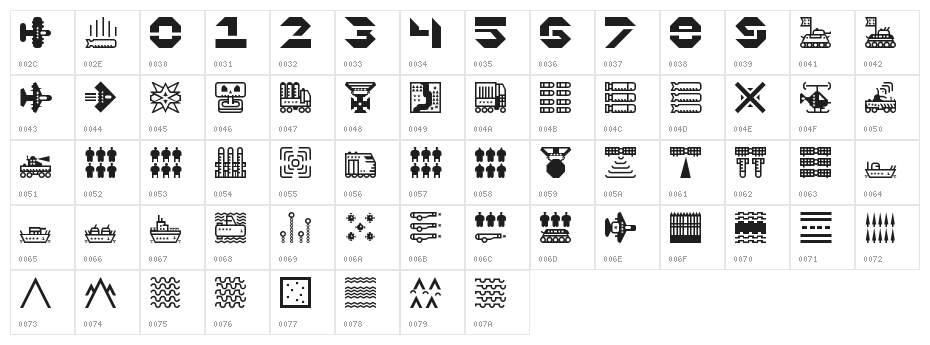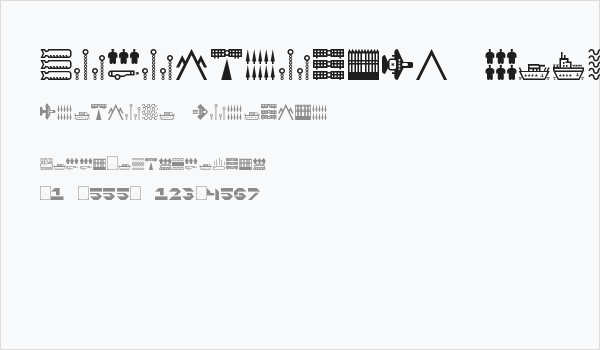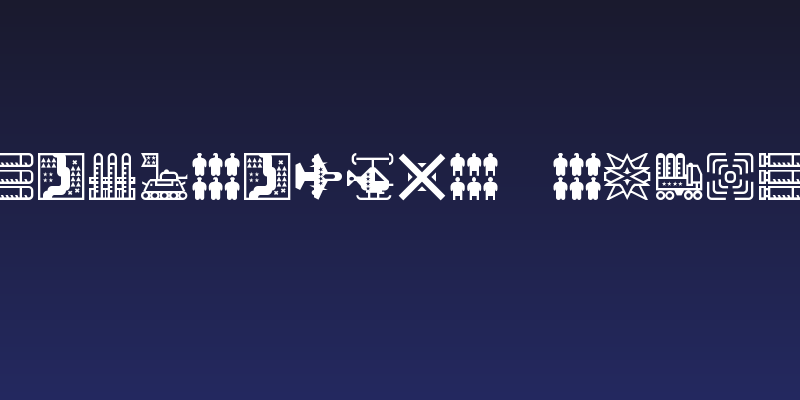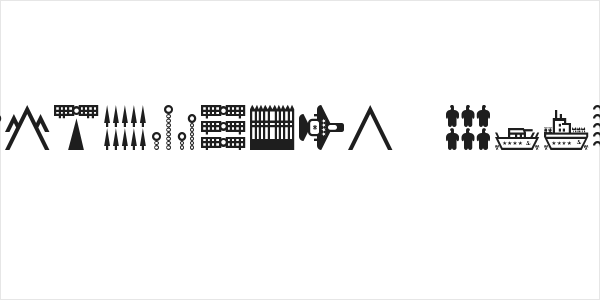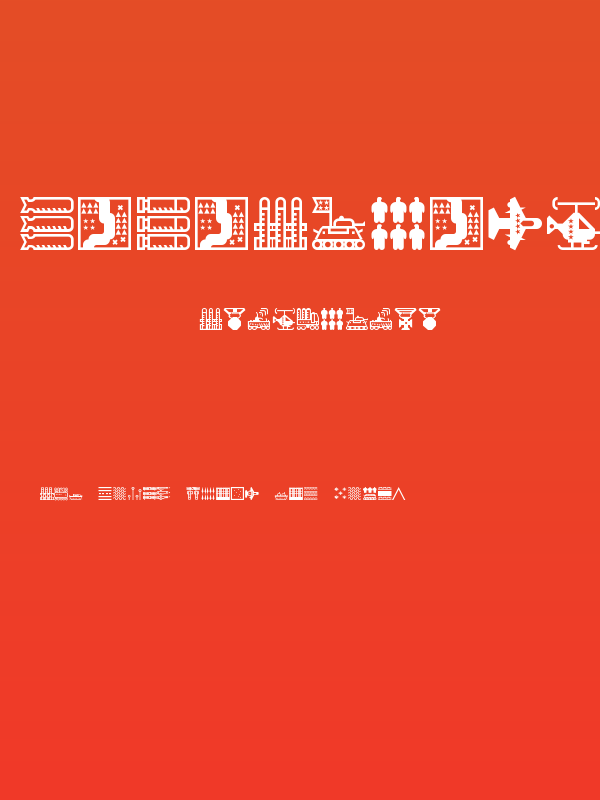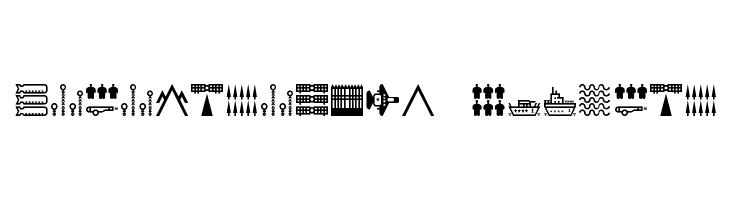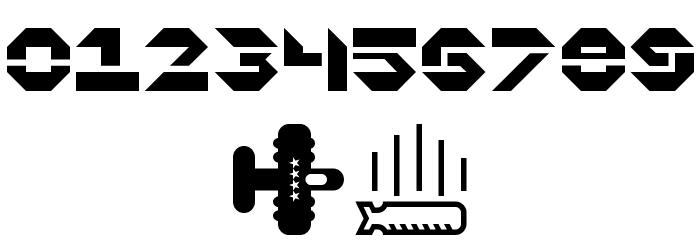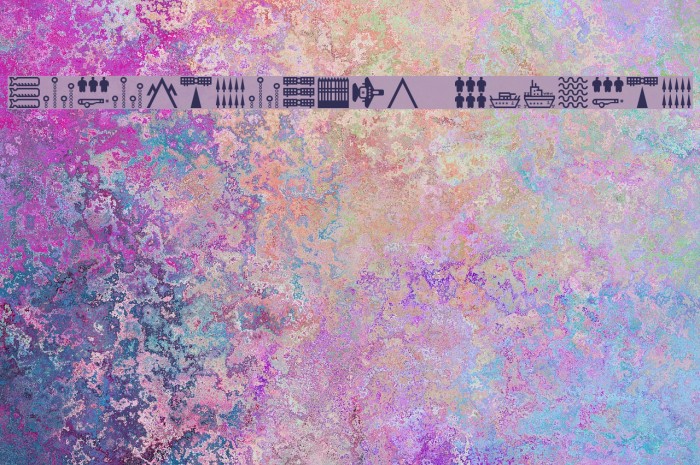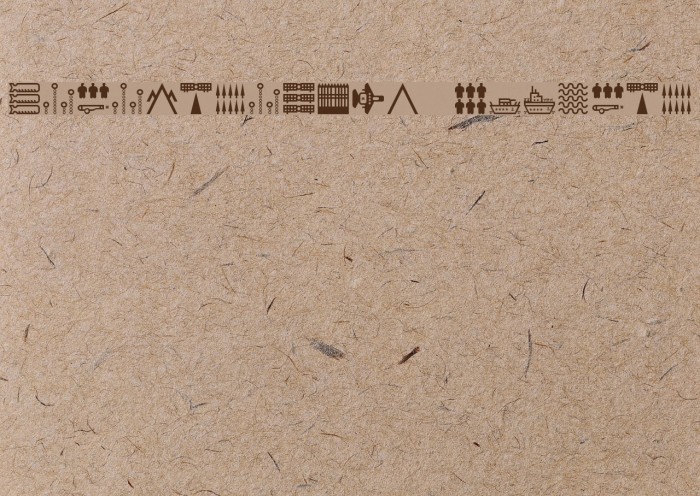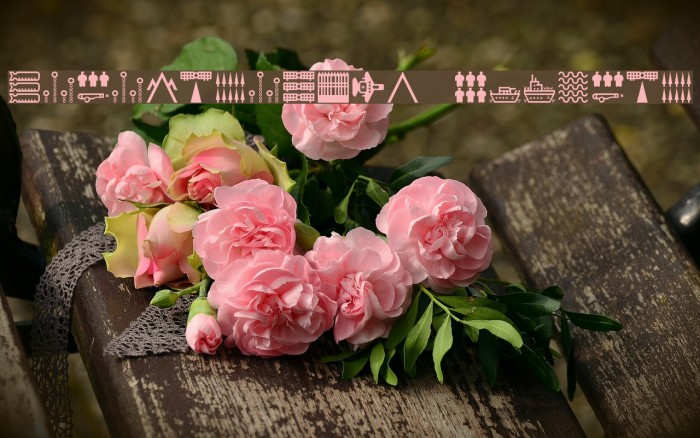
Militaricons Regular Font
Militaricons Regular Description
This font is a collection of military-themed icons, featuring a variety of symbols such as tanks, planes, ships, and other military equipment. Each character is designed with intricate details that represent different aspects of military operations, including vehicles, weaponry, and insignia. The icons are bold and striking, making them suitable for projects that require a strong visual impact. The style is consistent across all characters, ensuring a cohesive look when used together.
| Use Case | Logos, Posters, Thematic Illustrations |
| Proposed Projects | Ideal for military-themed designs, educational materials, video game graphics, or any project requiring strong, thematic icons. |